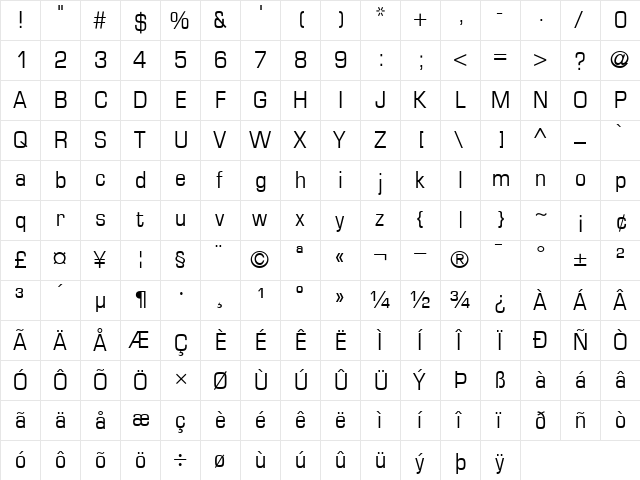
Eurostile-Condensed Roman
Design Context for Eurostile-Condensed Typeface
Eurostile-Condensed is a composed and adaptable typeface that performs quietly and consistently across a wide range of design contexts. The condensed width makes it efficient for tight spaces without sacrificing legibility.